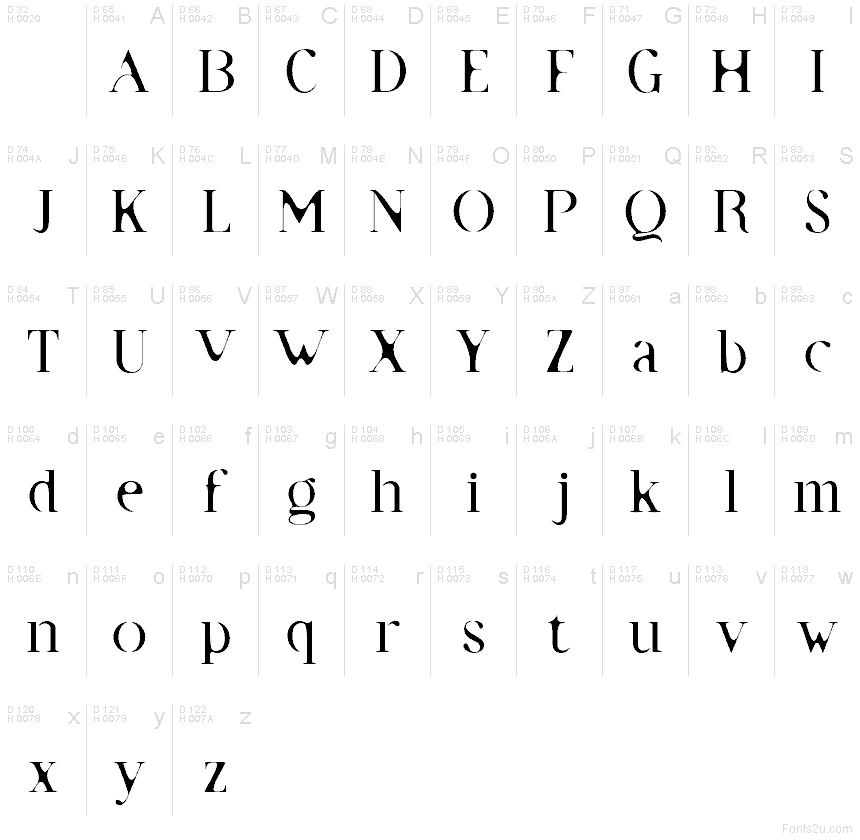
CSArdentDrawn-Regular Demo
CS Ardent Drawn font by Craft Supply Co. is an elegant serif typeface characterized by its modern aesthetic and sophisticated appearance. Each letter blends a classic serif design with artistic flair, creating a harmonious balance that appeals to contemporary tastes.
This free serif font is perfect for branding, packaging, book covers, magazines, wedding invitations, certificates, stationery designs, and editorial layouts. It also shines in posters, logos, website headers, mobile app interfaces, social media graphics, and promotional materials.